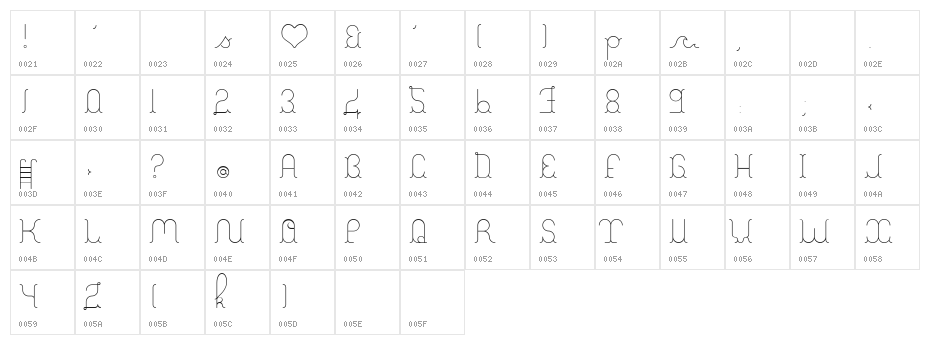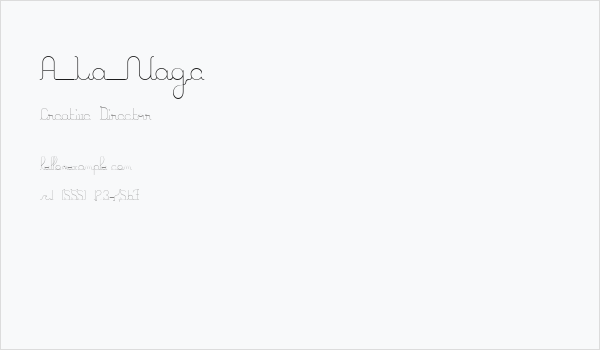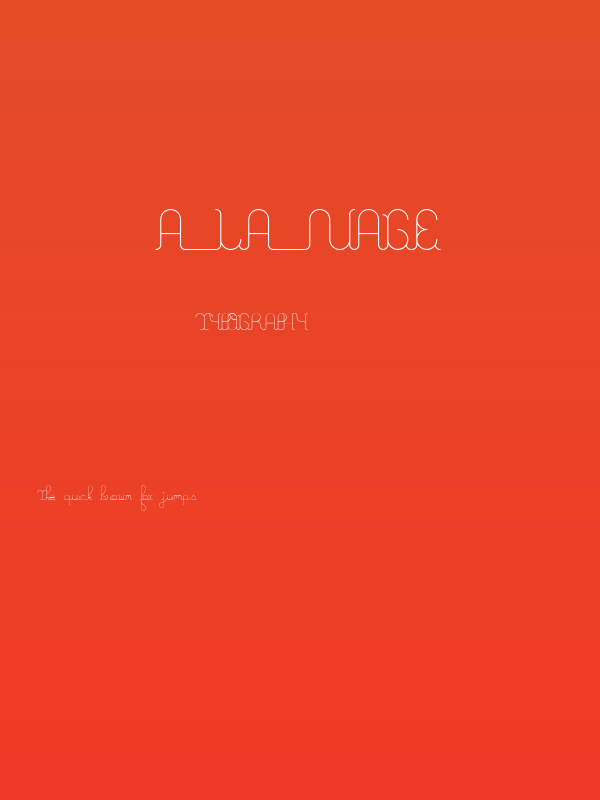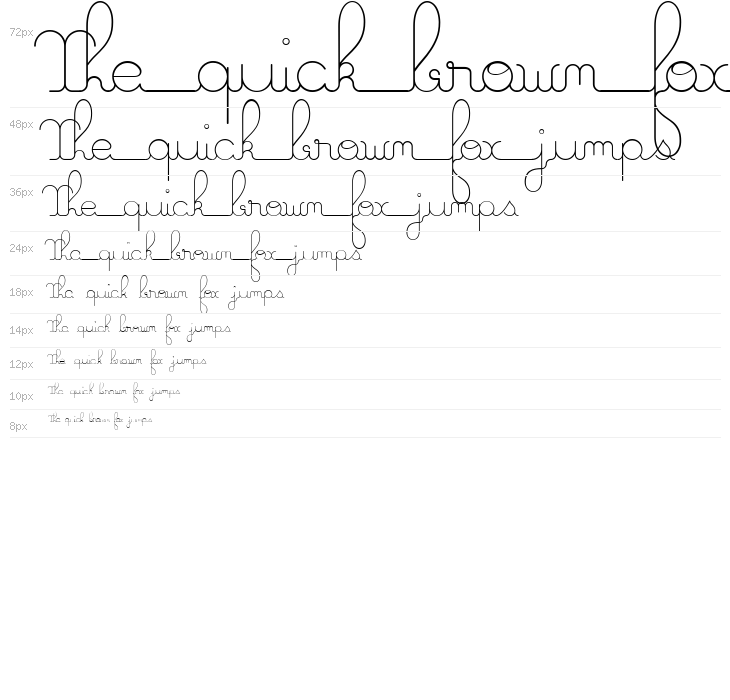
A La Nage Font
A La Nage Description
This font features a unique and artistic design, characterized by its continuous, looping lines that form each letter and number. The strokes are thin and consistent, creating a delicate and intricate appearance. The uppercase and lowercase letters maintain a cohesive style, with the lowercase letters exhibiting a slightly more playful and whimsical form. The numbers and special characters follow the same looping pattern, ensuring uniformity across the font. This design is both modern and decorative, making it stand out for creative uses.
| Use Case | Logos, Artistic projects, Invitations |
| Proposed Projects | Ideal for creative projects such as invitations, artistic posters, branding for fashion or design companies, and unique logo designs. |